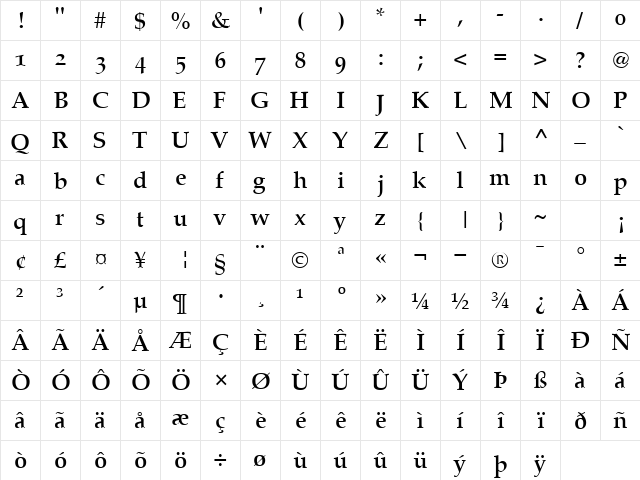
CriteriaOSSSK Regular Font Preview
CriteriaOSSSK Regular
Design Context for CriteriaOSSSK Typeface
CriteriaOSSSK offers clean, dependable letterforms without strong stylistic allegiance, making it a practical choice for designers who need flexibility.
Pro Tip: Use CriteriaOSSSK in both headline and body roles to test its range before committing to a single application.